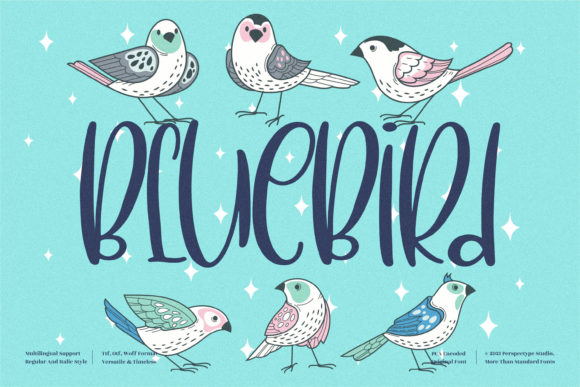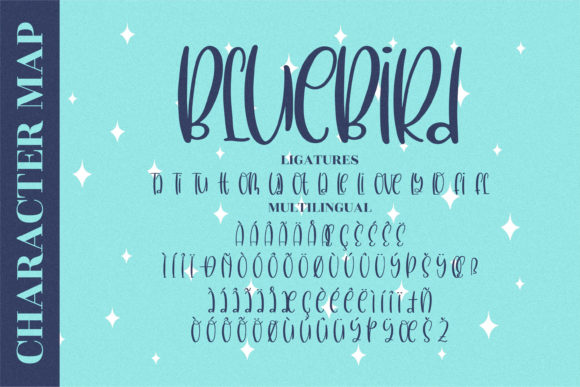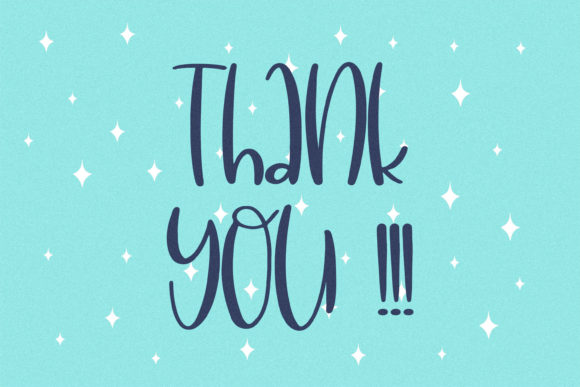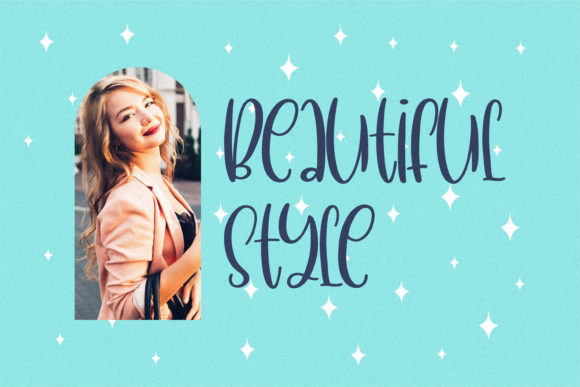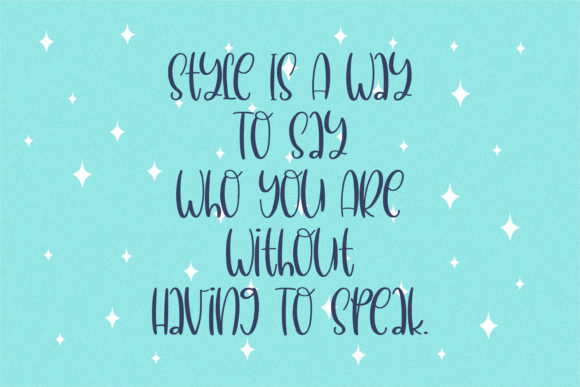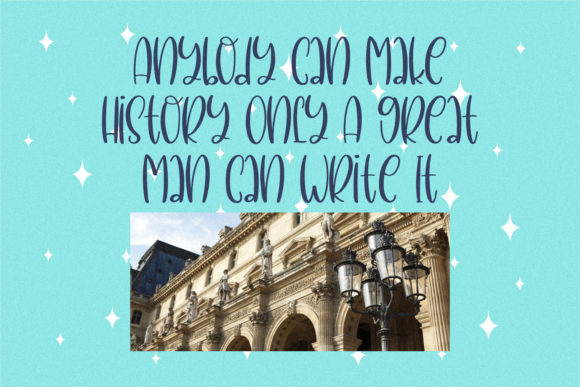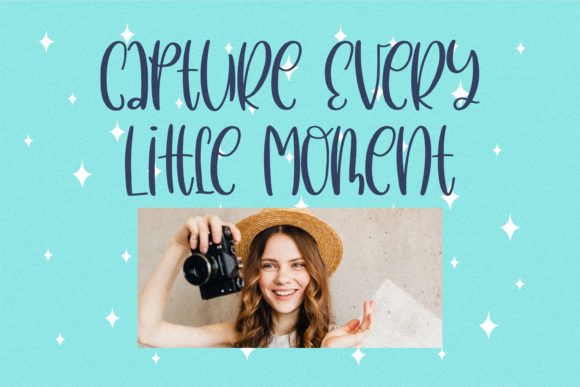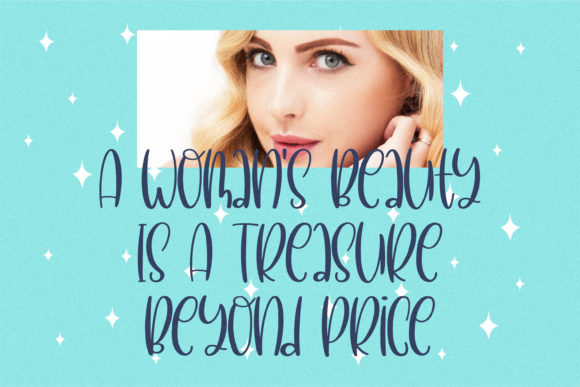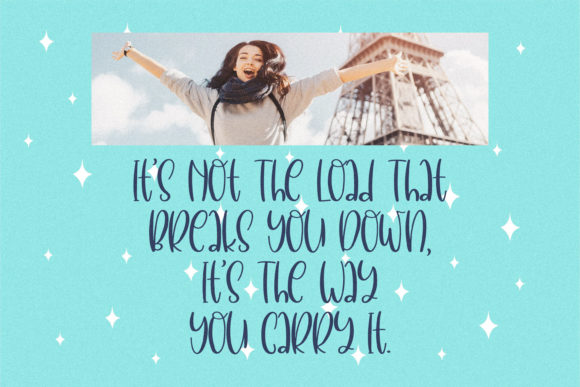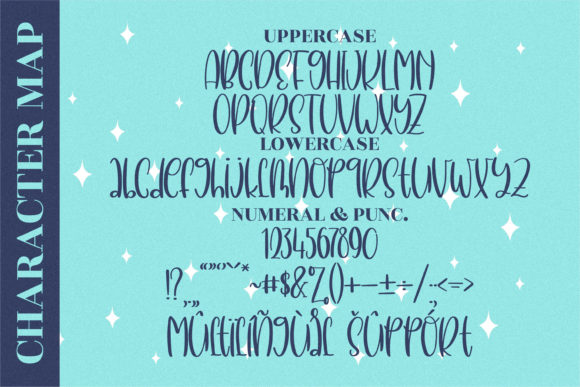
BlueBird Font
About BlueBird Font
BlueBird is a cool, relaxed and casual handwritten font. Whether you use it for cartoon related designs, children games or just any creation that requires a lovely touch, this font will be an amazing choice.